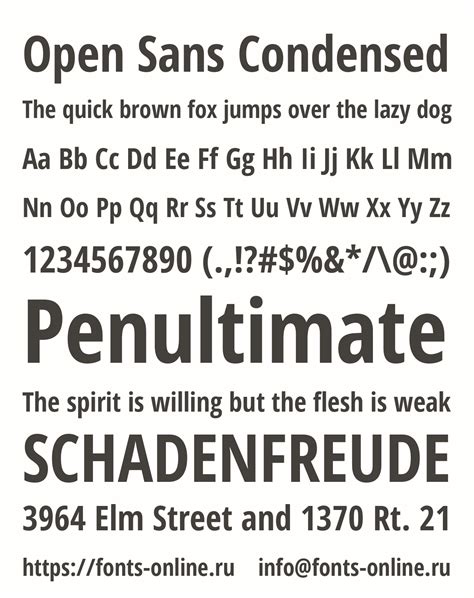
Open Sans Condensed Fonts Shmonts
Open Sans Condensed Font. Web open sans is a humanist sans serif typeface designed by steve matteson, type director of ascender corp.
Web open sans is a humanist sans serif typeface designed by steve matteson, type director of ascender corp.
Web open sans is a humanist sans serif typeface designed by steve matteson, type director of ascender corp. Web open sans is a humanist sans serif typeface designed by steve matteson, type director of ascender corp.